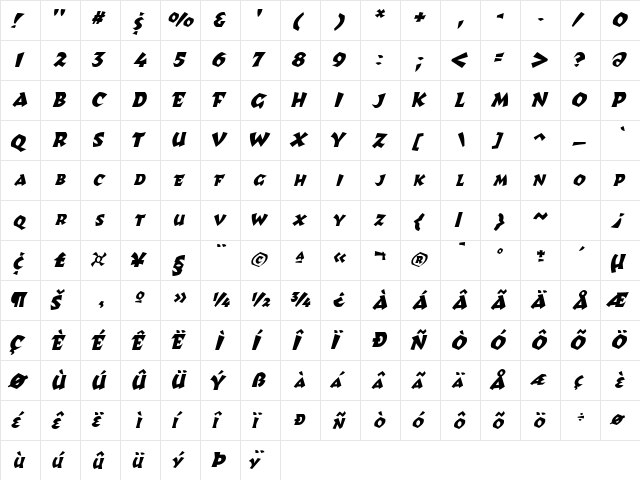
DustupSCapsSSK Italic Font Preview
DustupSCapsSSK Italic
DustupSCapsSSK Italic Font Details
Design Context for DustupSCapsSSK Typeface
DustupSCapsSSK is a composed and adaptable typeface that performs quietly and consistently across a wide range of design contexts. The slanted form adds forward momentum and visual energy.
Pro Tip: Try DustupSCapsSSK for annotation and caption copy alongside an upright companion — the contrast in angle creates a dynamic but ordered typographic system.